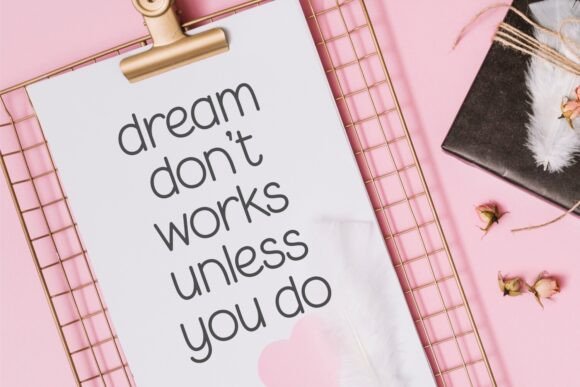
Special School Font
Introducing Special School, the clean and modern handwritten font that brings simplicity and style to your notes and projects! With its smooth, rounded letters and minimalist design, this font is perfect for creating organized, easy-to-read content while maintaining a personal touch. Whether you’re working on school projects, presentations, or creative branding, Special School delivers clarity and charm with a sleek and friendly vibe. Its simple yet elegant look makes it versatile for any design that needs a calm, balanced, and approachable feel. And with full multilingual support, Special School can communicate your ideas across the globe with ease.